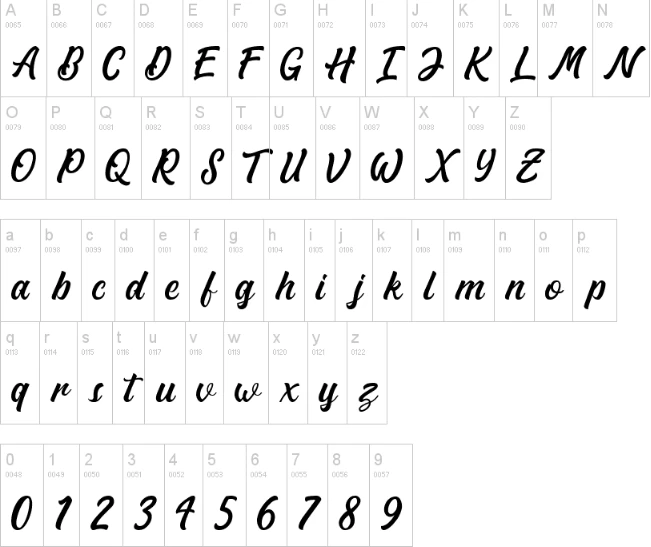
Hello there! Matane Font is a new elegant script and brush font that I’d like to introduce to you. Ydhra Studio created Matane and shared it with the world. The Matane Typeface is a fashionable hand-painted script. This Font belongs to the Script subfamily. It comes with dynamic and attractive OpenType characteristics.
Matane Typeface is suitable for Apparel Branding, Lettering, Product Packaging, Printed Quotes, Invitations, Image Overlays, Greeting Cards, Text Headers, Book Covers, Painting Creative Styles, and other design projects. To add an appealing message to your design, mix and combine the alternate characters of this Font.
Matane Script Font View
Matane Script Font Characte map
Matane Script Font View